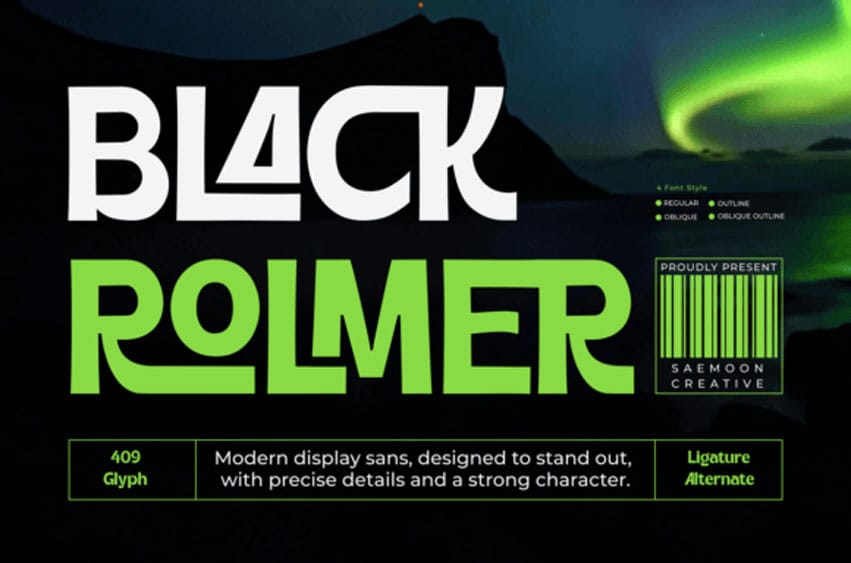
Black Rolmer Font is a captivating display sans-serif font designed to leave a lasting impression. With its bold character and clean lines, this font is perfect for making a statement.
What sets Black Rolmer apart is its extensive selection of ligatures, offering a unique blend of creativity and functionality. These ligatures add a special flair to your projects, ensuring each piece stands out with its distinct style and charm.